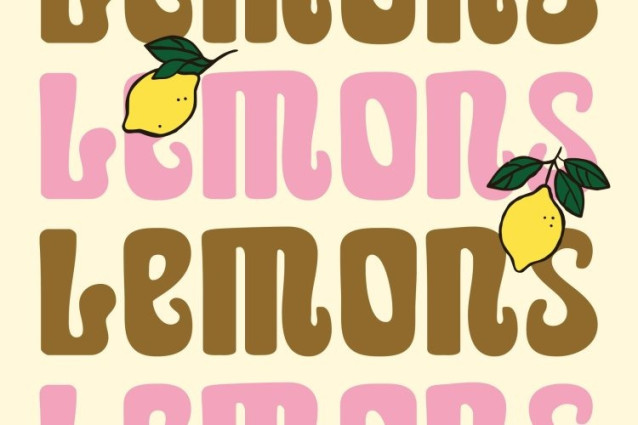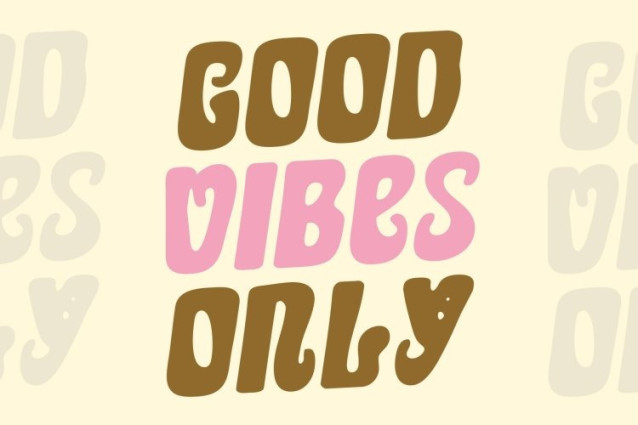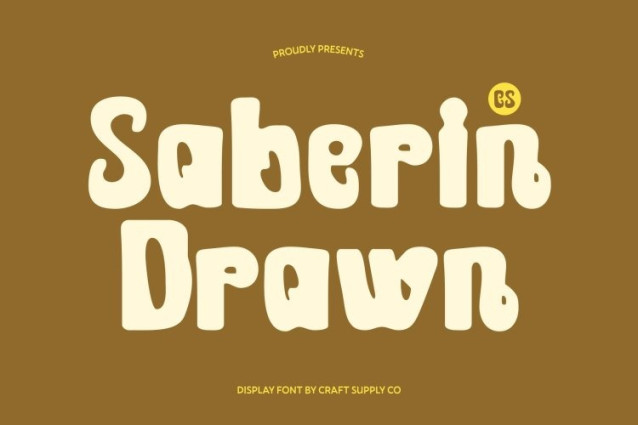
CS Saberin Drawn Font
CS Saberin Drawn Font This is a fun display font designed with bold strokes and approachable, friendly shapes. Its lively letterforms create a cheerful, energetic presence, making it ideal for projects that want to convey joy, youthfulness, and a dynamic visual personality.
Artistic Hand-Drawn Texture
The drawn effect adds an artistic and expressive quality, giving each letter a handcrafted feel. This subtle texture introduces variation and personality, transforming standard shapes into lively, organic forms that feel unique, personal, and visually engaging.
Versatile for Youthful and Creative Projects
This font perfect for youth branding, greeting cards, posters, and casual creative projects. Its playful style ensures designs are approachable, fun, and memorable, appealing to audiences of all ages while maintaining readability and charm.
Perfect for Expressive, Joyful, and Handcrafted Designs
Whether used in editorial layouts, social media graphics, packaging, or promotional materials, delivers a distinctive blend of playfulness and artistic expression. It brings energy, warmth, and a handcrafted touch that enhances every project with personality and charm.